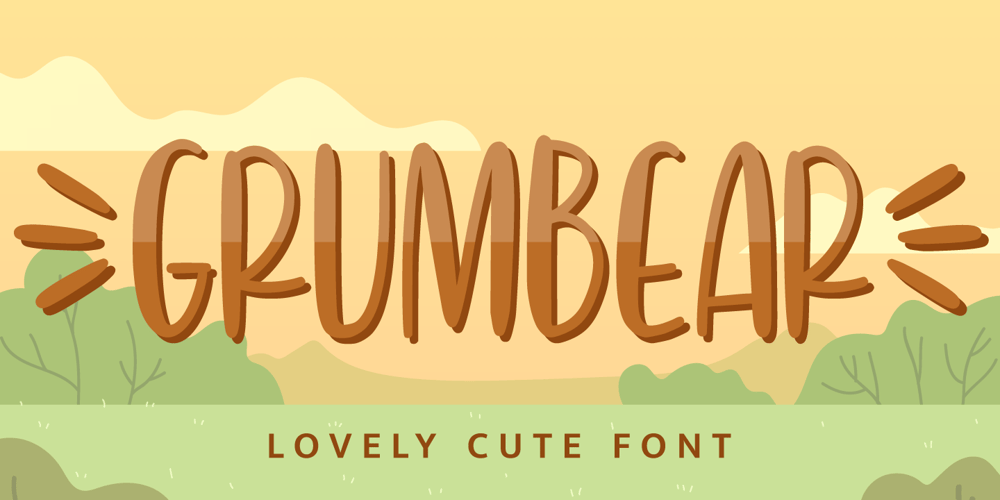
Grumbear Font Family was designed by Abdul Malik Wisnu and published by Almarkha Type. Grumbear contains 1 styles and family package options. Grumbear is sweet and playful, but also elegant. This versatile script font has a wide range of applications ranging from greeting cards to kids’ crafts, and is guaranteed to add a sweet touch to your next design.Accessible in the Adobe Illustrator, Adobe Photoshop, Adobe InDesign, even work on Microsoft Word.PUA Encoded Characters – Fully accessible without additional design software.+ Fonts include multilingual support for; ä ö ü Ä Ö ÜThank’s